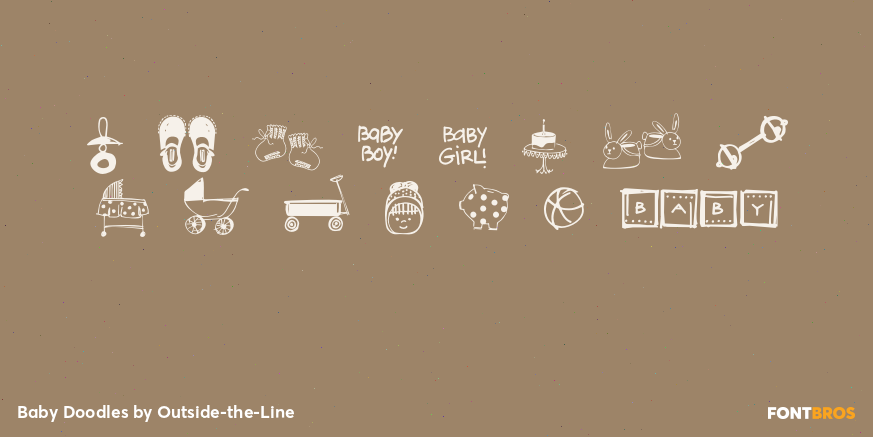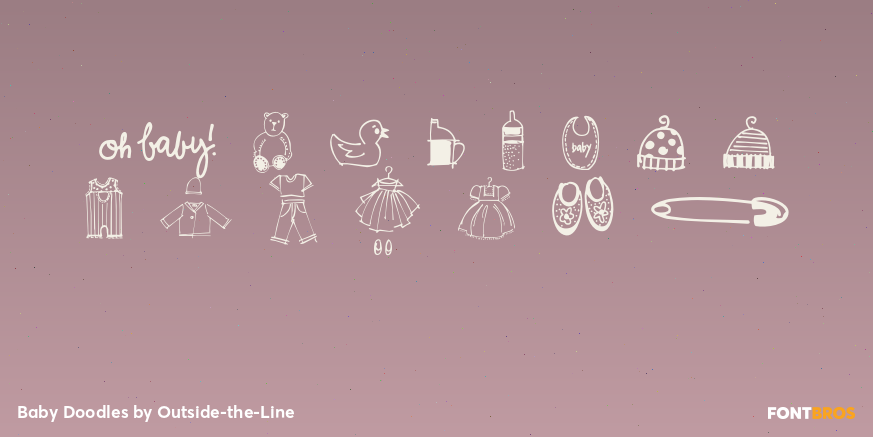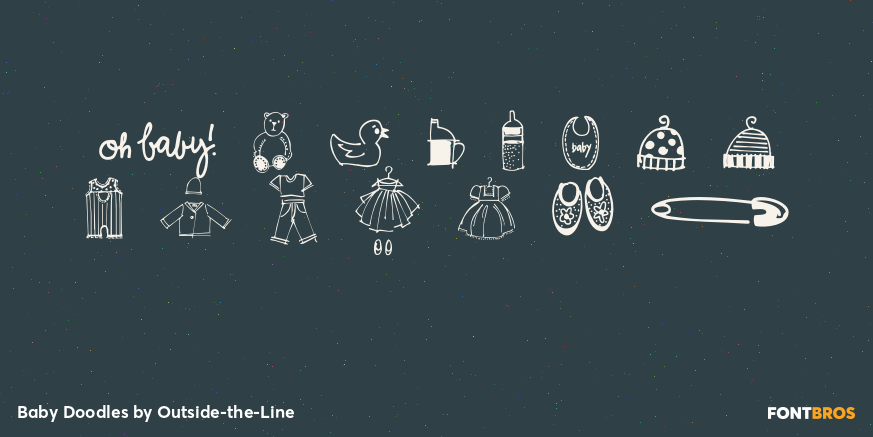
Baby Doodles
Font Family by Outside-the-Line
Fun, little illustrations of baby toys, baby clothes and baby stuff. 27 darling doodle-like baby illustrations and 3 script and printed baby titles.